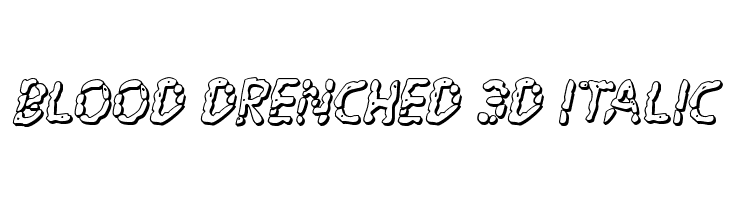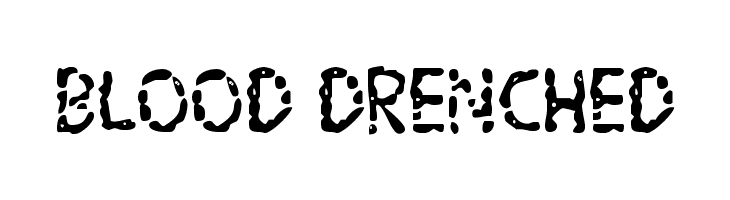
A bold, 3D italic font with a dripping, liquid texture for a horror-themed aesthetic.
A bold, condensed font with a dripping, blood-like appearance, ideal for horror themes.
A dramatic, blood-drenched style font with condensed, italicized characters.
A bold, splatter-themed font with an eerie, artistic flair.
A bold, expanded, and italicized decorative font with a splattered appearance.
A dripping, blood-like decorative font with a horror theme.
A bold, dripping liquid-style font perfect for horror themes.
A bold, chaotic font with a dripping, splattered appearance, perfect for horror themes.
A bold, dripping font with a horror-themed, liquid-like appearance.
A dramatic, splatter-style font with irregular, fluid characters.